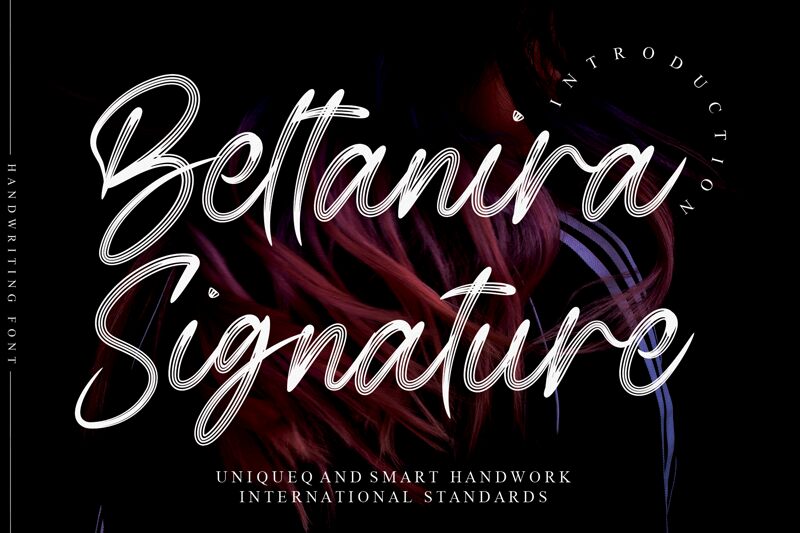
Beltanira Signature
Beltanira Signature is a stunning brush font designed by scratchones. With a light weight and flowing strokes, this font is perfect for elegant and feminine projects such as wedding invitations, branding, and social media graphics. Its unique style adds a touch of sophistication to any design. Let Beltanira Signature bring your projects to life.
the latest style letters are perfect for wall displays, wedding invitations, social media post logos,
advertisements, product packaging, product designs, labels, photography, watermarks, invitations, stationery,
and any project that requires taste handwriting.